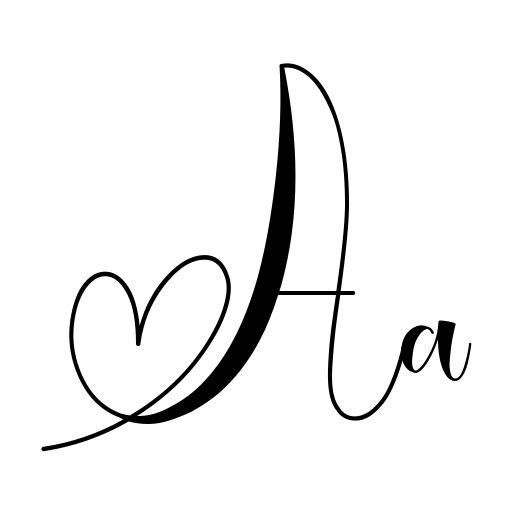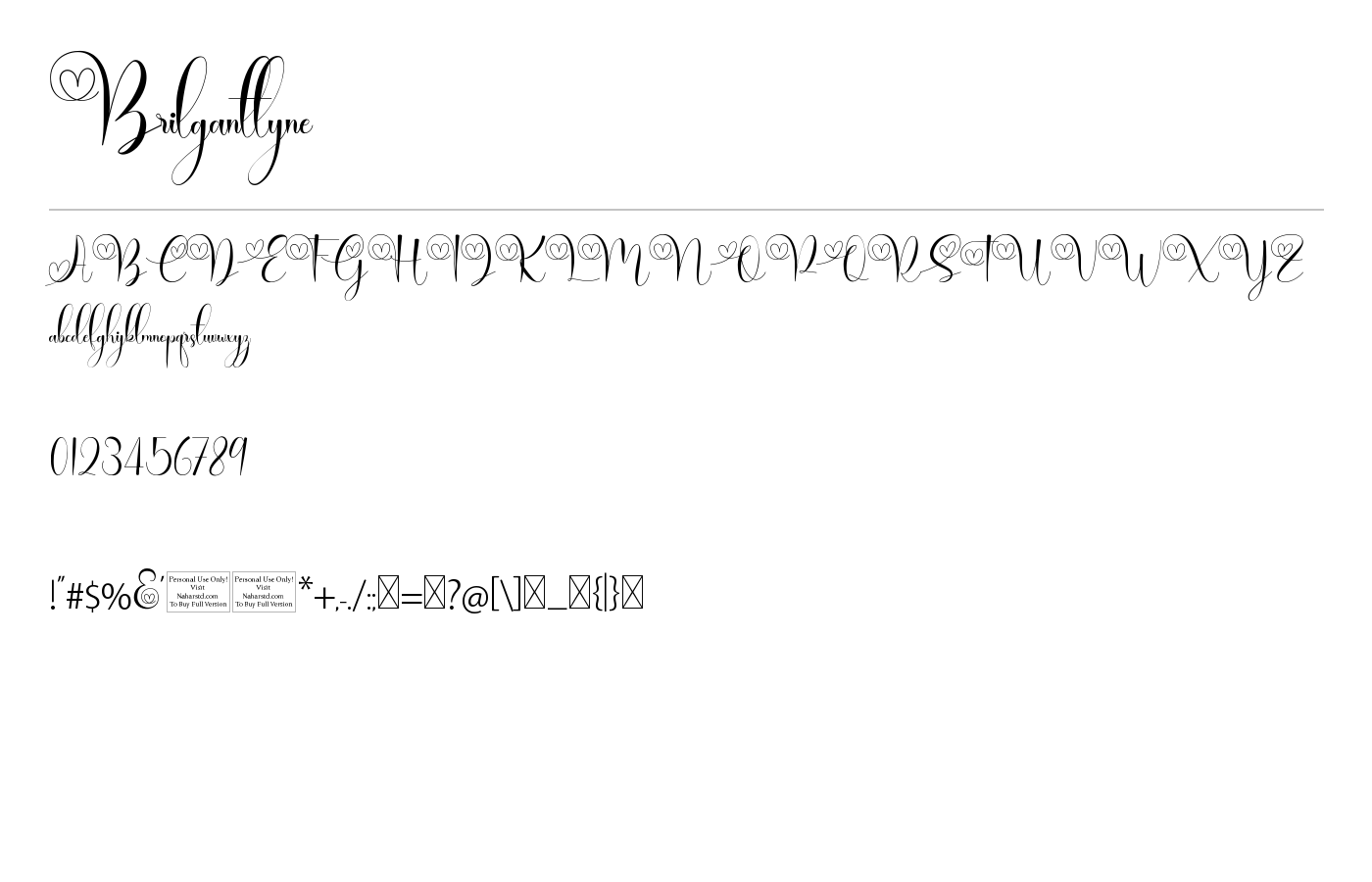
Brilganttyne is an elegant, decorative script font characterized by its tall, slender letterforms and delicate swashes, especially noticeable in the uppercase letters adorned with heart-shaped flourishes. Its fine, flowing lines and high contrast give it a romantic and sophisticated feel, making it ideal for invitations, luxury branding, and feminine design projects where a graceful, artistic touch is desired. This font works best in large display uses such as logos and headlines, where its intricate details can truly stand out.
Brilganttyne Font
About Brilganttyne Font
| Font family | Brilganttyne Font |
| Designer | Nanda Hardiansyah | Naharstd |